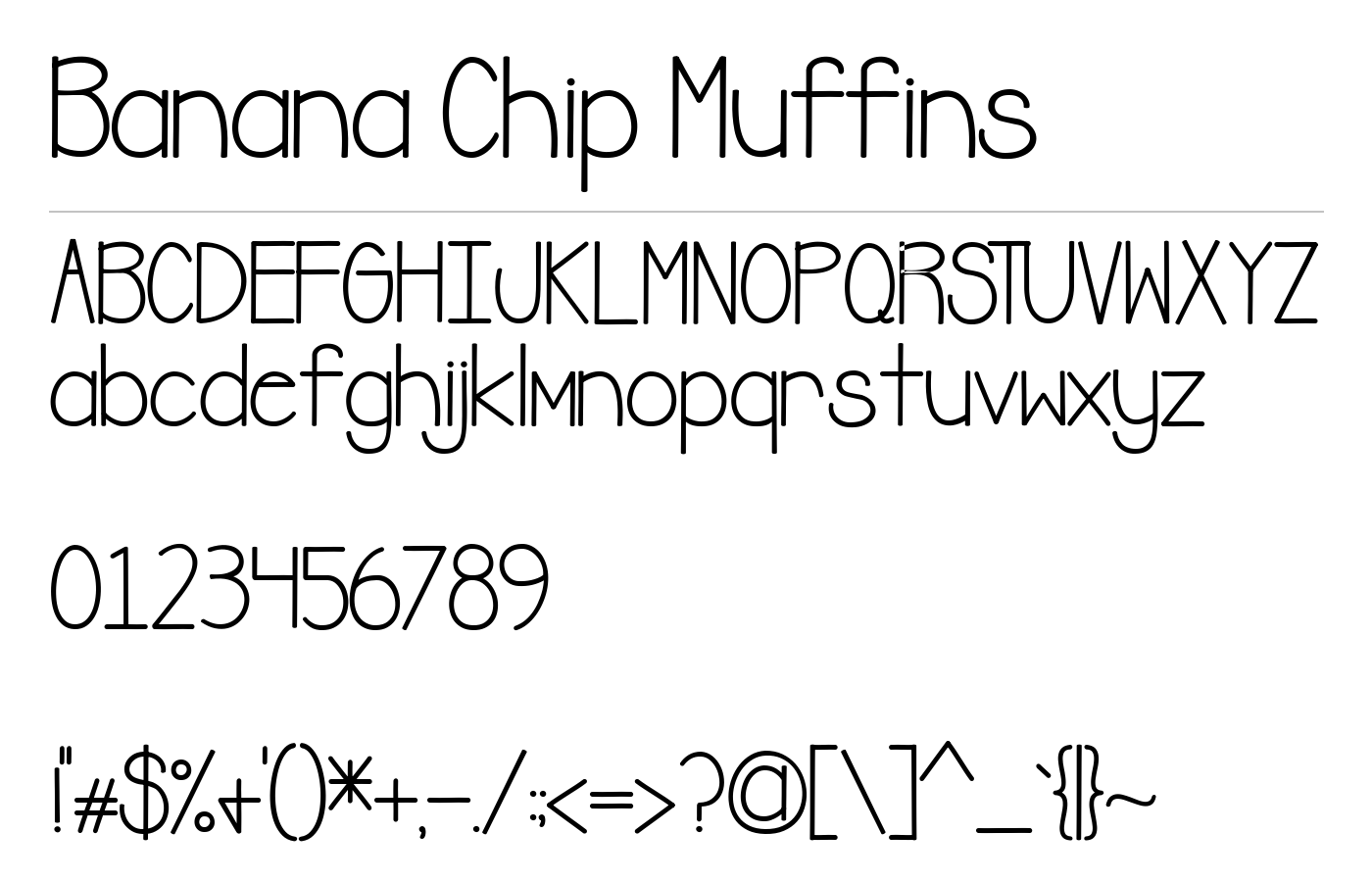
Banana Chip Muffins is a playful, thin sans serif font with a tall, narrow appearance and a casual, hand-drawn feel. Its clean, light strokes and unique quirky letterforms make it perfect for fun, informal designs like children’s books, playful branding, or crafting projects. This font works best in headlines and logos where a friendly, approachable vibe is desired.
Banana Chip Muffins Font
About Banana Chip Muffins Font
| Font family | Banana Chip Muffins Font |
| Designer | Brielle Lang |